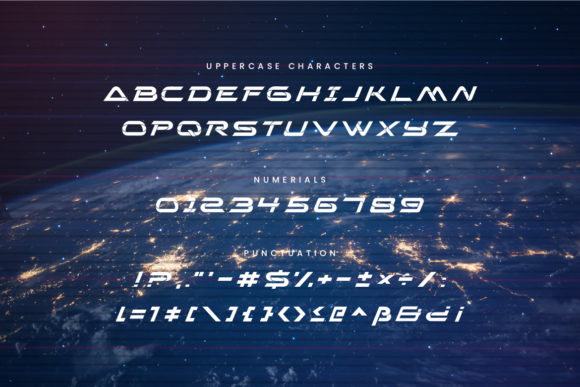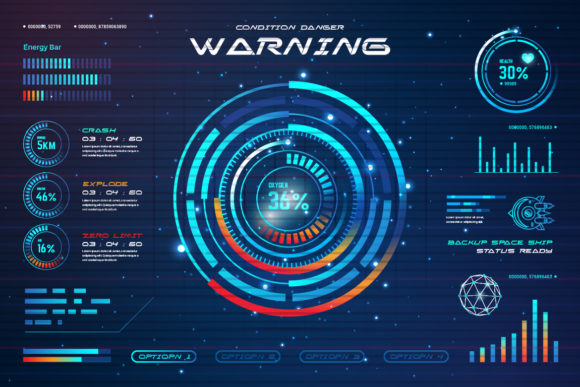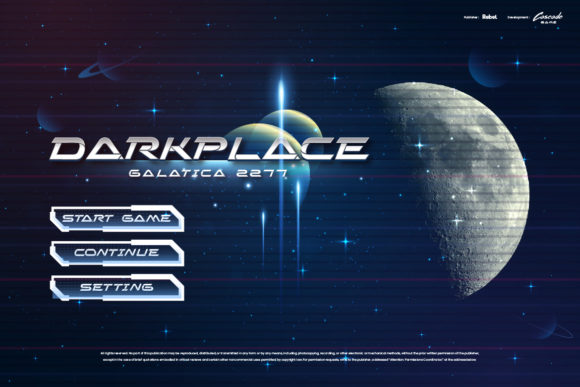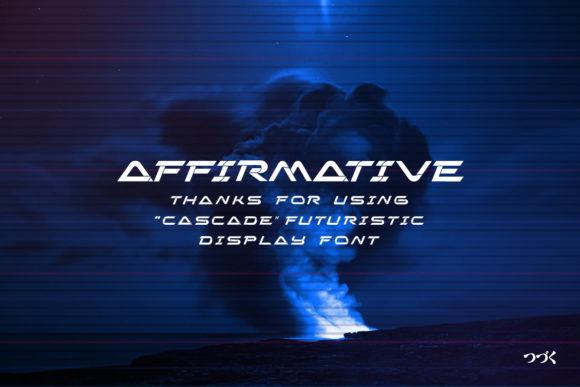
Cascade Font: Elevate Your Designs with a Futuristic Twist
In the realm of design, fonts play a pivotal role in conveying the intended message and aesthetic of a project. Whether you’re crafting a poster, game cover, music album, or movie title, the right font can make all the difference. This is where Cascade Font comes into play, a display font that has been making waves in the design community for its futuristic appeal and quirky style.
What is Cascade Font?
Cascade Font is a meticulously designed typeface that embodies the essence of futuristic themes. Its unique and captivating style is tailored to add a personal touch to your designs, setting them apart from the mundane. With Cascade, designers can infuse their projects with a sense of innovation and forward-thinking, making it an ideal choice for those aiming to leave a lasting impression.
Key Features of Cascade Font
- Unique Quirkiness: Cascade Font boasts a quirky style that adds a refreshing twist to any design. Its unconventional charm can turn a simple project into a standout piece.
- Futuristic Appeal: Perfectly suited for designs that require a futuristic edge, Cascade Font brings a modern and sleek vibe that is hard to achieve with traditional fonts.
- Versatility: Whether it’s for posters, game covers, music albums, movie titles, or logos, Cascade Font adapts seamlessly, making it a versatile addition to any designer’s toolkit.
- Personal Touch: The font’s distinctive style allows designers to impart a personal touch to their work, making each project uniquely identifiable.
Applications of Cascade Font
The versatility of Cascade Font means it can be used across a wide range of projects. Here are some of the most impactful applications:
- Posters: Elevate your poster designs with a font that commands attention and communicates a futuristic theme effectively.
- Game Covers: Stand out in the gaming industry with eye-catching covers that showcase the essence of your game through Cascade Font.
- Music and Movie Titles: Add a touch of modernity and intrigue to your album covers and movie titles, making them instantly memorable.
- Logos: Create a lasting impression with a logo that incorporates Cascade Font, perfect for brands looking to convey innovation and dynamism.
Why Choose Cascade Font?
In a market flooded with fonts, Cascade stands out for several reasons:
- Originality: Its quirky and futuristic design ensures your projects are original and captivating.
- Legibility: Despite its unique style, Cascade Font maintains a high level of legibility, making it suitable for a variety of applications.
- Customization: Easy to customize, Cascade Font allows designers to adapt it to their project’s specific needs.
Cascade Font is more than just a typeface; it’s a design statement. Its futuristic appeal, quirky style, and versatility make it an indispensable asset for designers looking to infuse their projects with a personal touch and a modern edge. Whether you’re a professional designer or a crafting enthusiast, Cascade Font is poised to revolutionize your design process, offering a fresh perspective on how to communicate your creative vision.